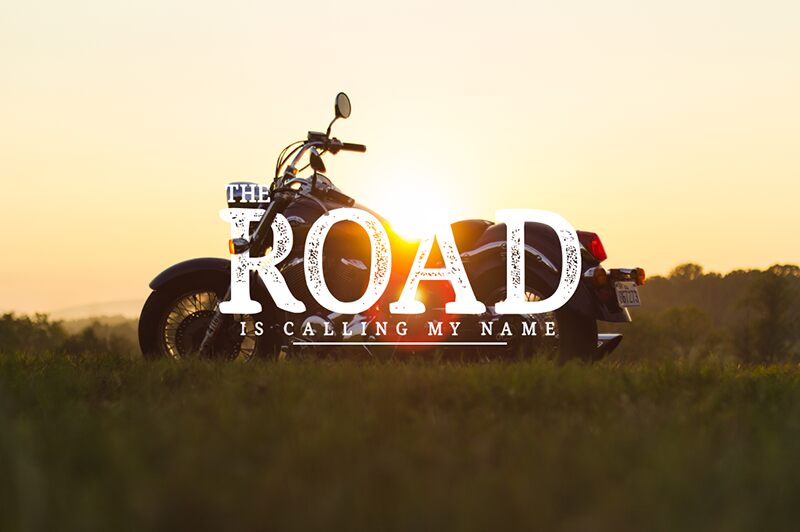
Endurest Distant font is an eroded serif typeface designed by The Branded Quotes.
Built to withstand the challenge of trends and time.
Inspired from the graphing technique of the late Sir Raymond DaBoll but with markers, acrylics and digital touches to create balance among heights and spacing. Call it modern vintage.
Changing the size and kerning were made automatic for a perfect combination.
Features: Capitals, Numerals and Punctuation.